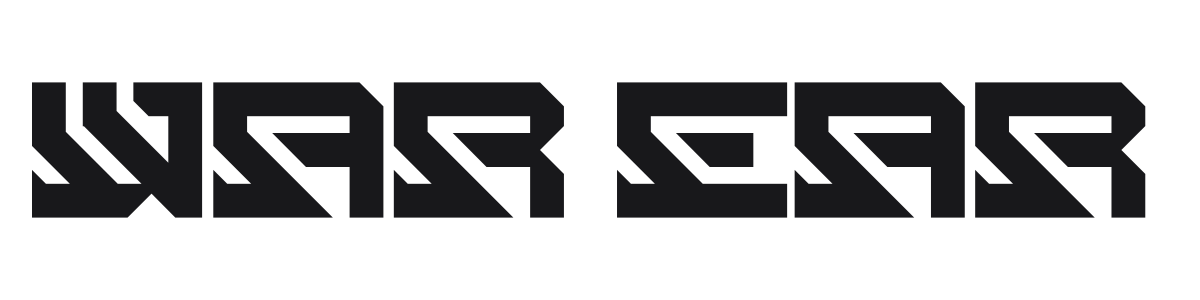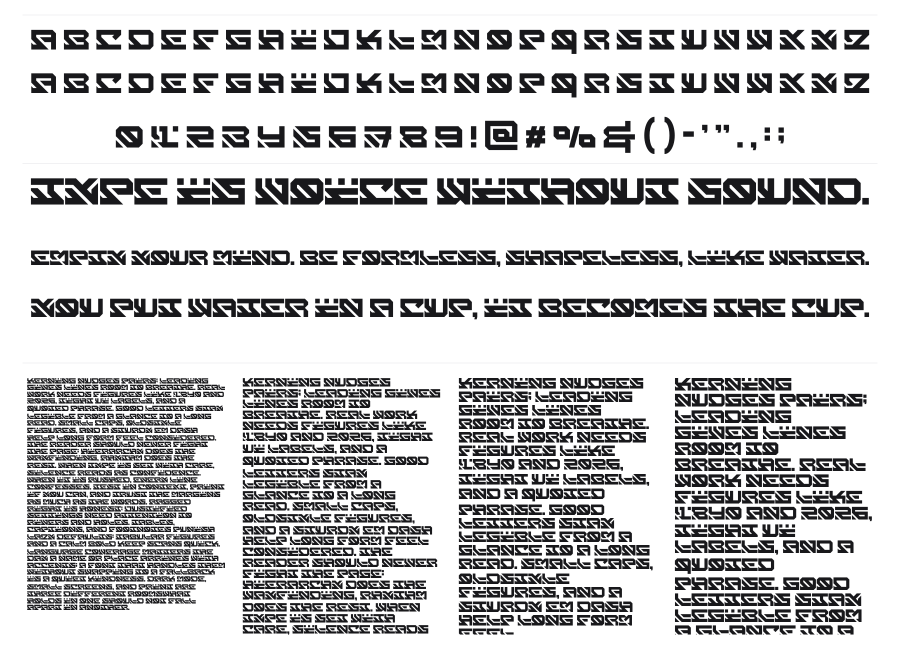
War Ear
War Ear is a heavy geometric display font built from bold rectangular forms sliced with sharp diagonal cuts that give each character a fragmented, tactical structure. The modular construction evokes military stencils and sci-fi interface design in equal measure. Strong at large sizes in gaming, action branding, and poster work.